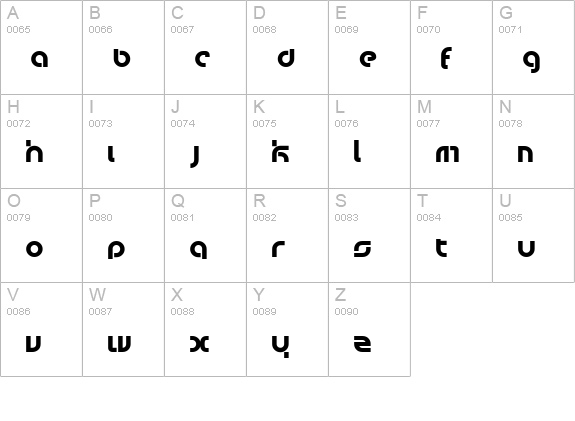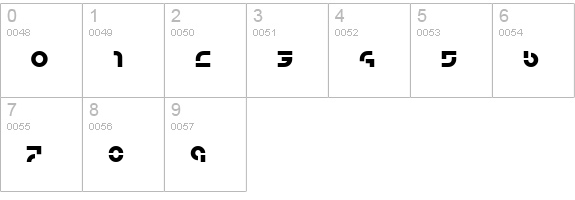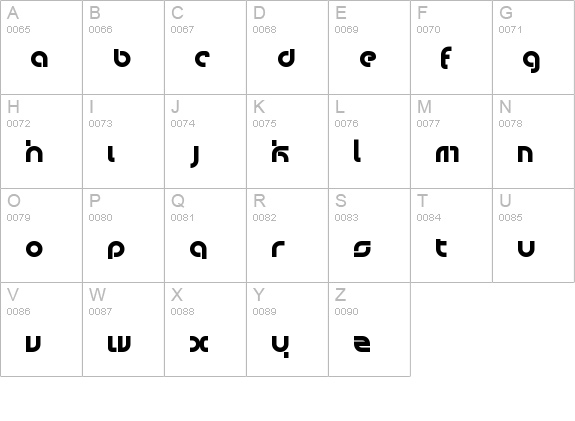
bauwerck Font Details
Bauwerck font is a stunning display typeface that exudes elegance and modernity. With its clean lines and stylish geometric shapes, this font is perfect for adding a touch of sophistication to any design project. The versatility of Bauwerck font makes it suitable for a wide range of applications, from branding and advertising to packaging and editorial design. What makes Bauwerck font even more appealing is that it is available for free download at FontsMarket.com. This means that you can easily access this beautiful typeface without any cost, making it a valuable addition to your font collection. Whether you are a designer looking to elevate your projects or a typographer exploring new styles, Bauwerck font is a must-have resource that will surely impress. Download it today and unleash your creativity with this exceptional font!